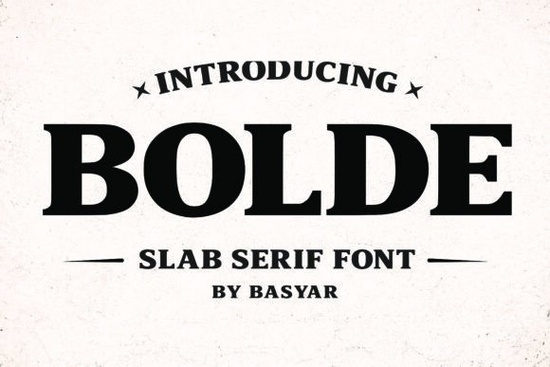
Bolde Font is a bold, western-inspired slab serif typeface designed for anyone who wants their text to feel strong, grounded, and unmistakably American. Built with clean letterforms and confident slab-like serifs, it captures the look of classic frontier typography without feeling outdated. Whether you're designing a ranch logo, a vintage-style poster, or a product label, this font brings a rugged, timeless quality that stands out.
What kind of projects work well with a bold western serif font?
A typeface like Bolde is surprisingly flexible. Its balanced proportions and solid structure make it readable at both large and small sizes, which means you can use it across a wide range of projects:
- Logo design especially for brands with a rustic, outdoorsy, or heritage feel
- Ranch and farm branding think signage, merchandise tags, and packaging
- Vintage posters rodeo events, county fairs, or old-west themed promotions
- Apparel and print-on-demand t-shirt designs, hat embroidery layouts, and mug graphics
- Signage storefront windows, menu boards, or directional signs with character
- Bold headlines magazine covers, blog banners, or social media graphics
The key here is that it delivers impact without sacrificing clarity. You get a strong visual presence, but the text still reads well even in longer phrases or smaller print sizes.
How does it compare to other slab serif fonts?
Slab serif fonts cover a wide range of styles, from playful and rounded to sharp and industrial. Bolde sits in a specific niche: it leans into western Americana. The serifs are sturdy and blocky, giving the letterforms a heavy, grounded appearance. This sets it apart from more modern or geometric slab serifs that prioritize minimalism.
Is it a good fit for print-on-demand sellers?
Absolutely. If you sell designs on platforms like Redbubble, Merch by Amazon, or Etsy, having a go-to bold serif font saves a lot of time. Bolde works especially well for:
- Western-themed t-shirt quotes
- Rodeo and country lifestyle graphics
- Patriotic or Americana holiday designs
- Vintage distressed-style layouts
Since the letterforms are clean and structured, they reproduce well on fabric, mugs, stickers, and other print-on-demand products. You won't have to worry about thin strokes disappearing or fine details getting lost in the printing process.
Can beginners use this font easily?
Yes. One of the strengths of Bolde is its simplicity. The shapes are straightforward no overly ornate swashes or tricky ligatures to navigate. This makes it approachable for hobbyists who might be using design software like Canva, Cricut Design Space, or basic Adobe tools for the first time.
Even if you're just making a birthday banner or a personal project, a well-chosen bold serif font gives your work a polished, intentional look without requiring advanced design skills.